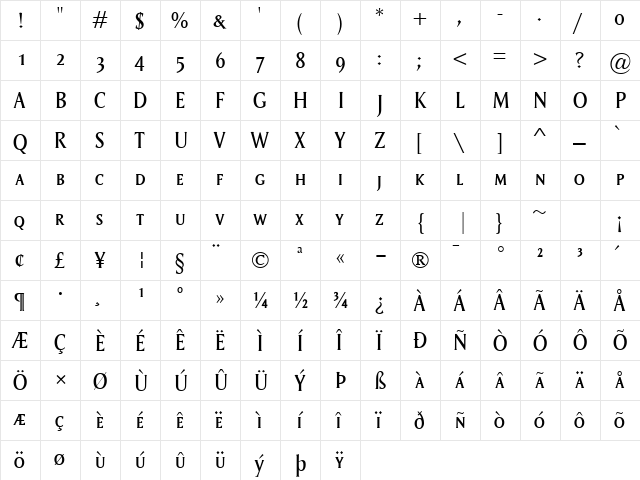
Saga SmallCaps Regular
Design Context for Saga SmallCaps Typeface
Saga SmallCaps is a composed and adaptable typeface that performs quietly and consistently across a wide range of design contexts.